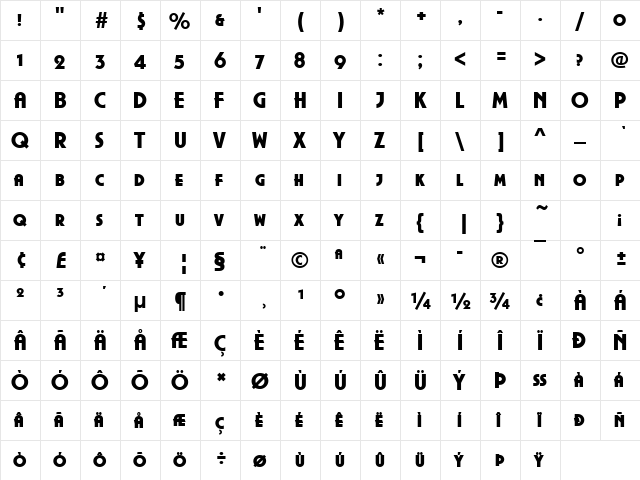
PlazaSCDUlt Regular
Design Context for PlazaSCDUlt Typeface
PlazaSCDUlt offers clean, dependable letterforms without strong stylistic allegiance, making it a practical choice for designers who need flexibility.